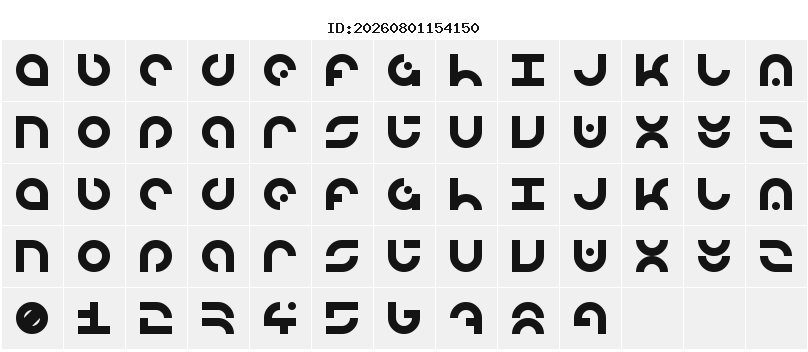
LDR MANUFACTURE Preview
• Font Name: LDR MANUFACTURE
• Full Font Name: LDR MANUFACTURE Regular
• Designer: Neoqueto
• Description: “LDR MANUFACTURE” was built with FontStruct
About LDR MANUFACTURE.ttf
LDR MANUFACTURE.ttf is a modern, elegant sans-serif font designed for ultimate readability and visual harmony. Perfect for branding, headlines, web design, and print materials.